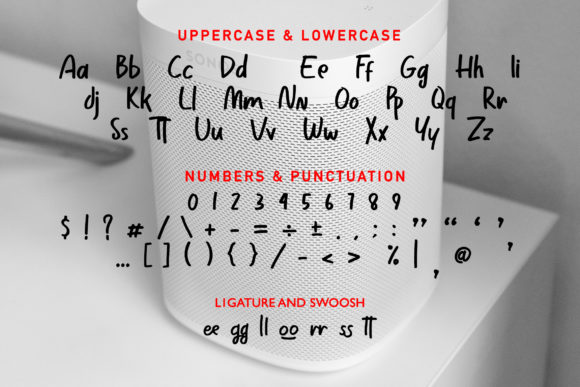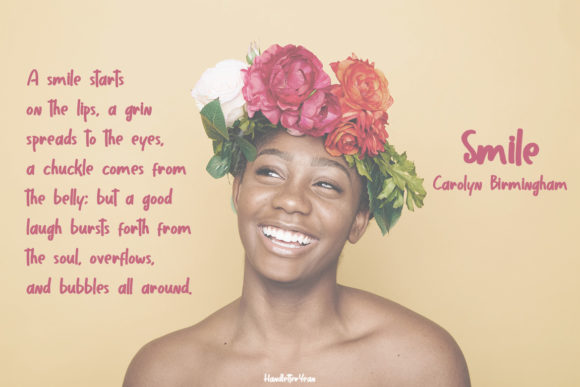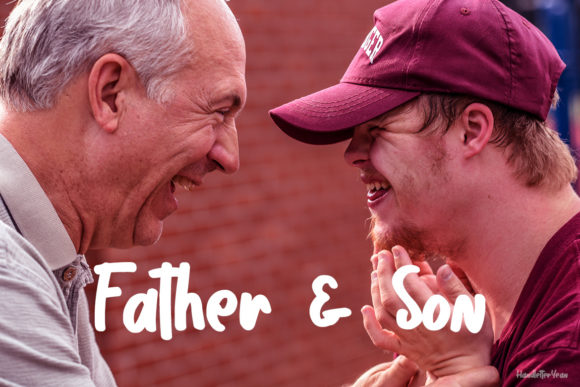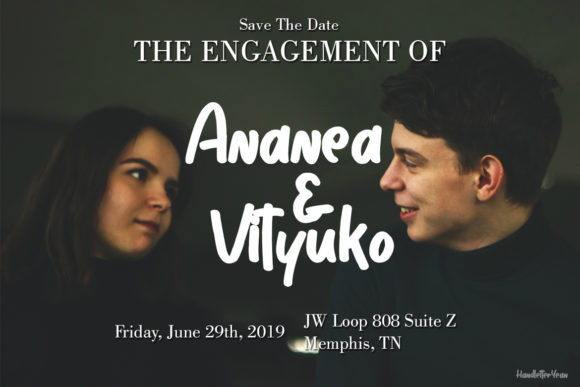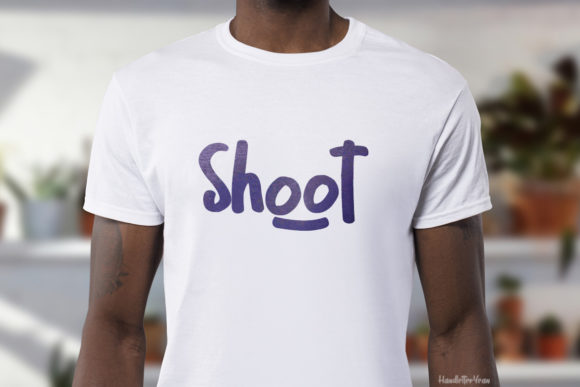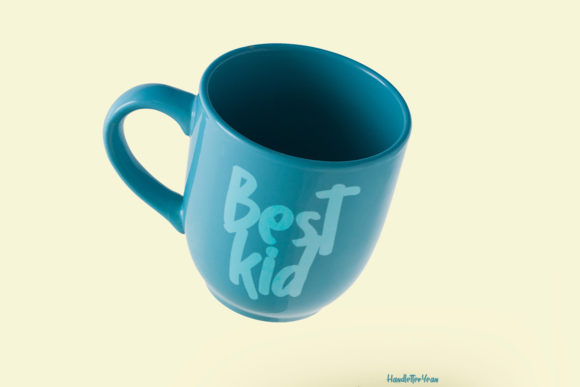
Introducing Boombox Font: The Ultimate Display Font for Creative Projects
Are you tired of using the same old fonts for your creative projects? Look no further than Boombox Font, a cute and fun display font that’s sure to add a fresh touch to your designs. With its whimsical charm and amazingly fresh feel, Boombox Font is the perfect choice for designers and crafters looking to add some personality to their work.
What is Boombox Font?
Boombox Font is a display font designed to make a statement. Its unique and playful design makes it perfect for use in a variety of creative projects, from posters and flyers to social media graphics and craft projects. The font’s bold and eye-catching design ensures that your message will stand out, making it ideal for use in titles, headings, and other display text.
Key Features of Boombox Font
- Cute and Fun Design: Boombox Font has a playful and whimsical design that’s sure to add a touch of personality to your projects.
- Fresh and Modern Feel: The font’s modern design ensures that your projects will look fresh and up-to-date.
- Highly Readable: Despite its bold and playful design, Boombox Font is highly readable, making it perfect for use in a variety of applications.
- Versatile: Boombox Font can be used in a variety of creative projects, from posters and flyers to social media graphics and craft projects.
How to Use Boombox Font in Your Projects
Boombox Font is easy to use and can be incorporated into a variety of creative projects. Here are a few ideas to get you started:
- Posters and Flyers: Use Boombox Font to create eye-catching posters and flyers that are sure to grab attention.
- Social Media Graphics: Add a touch of personality to your social media graphics with Boombox Font.
- Craft Projects: Use Boombox Font to add a personal touch to your craft projects, such as handmade cards and gift tags.
- Digital Art: Incorporate Boombox Font into your digital art projects, such as illustrations and graphic designs.
Tips for Getting the Most Out of Boombox Font
Here are a few tips for getting the most out of Boombox Font:
- Experiment with Different Colors: Boombox Font looks great in a variety of colors, so don’t be afraid to experiment and find the perfect color for your project.
- Use it as a Display Font: Boombox Font is designed to be used as a display font, so use it to add emphasis and personality to your project.
- Pair it with Other Fonts: Boombox Font pairs well with a variety of other fonts, so don’t be afraid to experiment and find the perfect combination for your project.
| Author | yean.aguste |
Boombox Font is a unique and playful display font that’s sure to add a fresh touch to your creative projects. With its whimsical charm and amazingly fresh feel, it’s the perfect choice for designers and crafters looking to add some personality to their work. So why wait? Download Boombox Font today and start creating!
Boombox Font: The Perfect Choice for Designers and Crafters
Boombox Font is the perfect choice for designers and crafters looking to add some personality to their work. Its unique and playful design makes it perfect for use in a variety of creative projects, from posters and flyers to social media graphics and craft projects. So why wait? Download Boombox Font today and start creating!